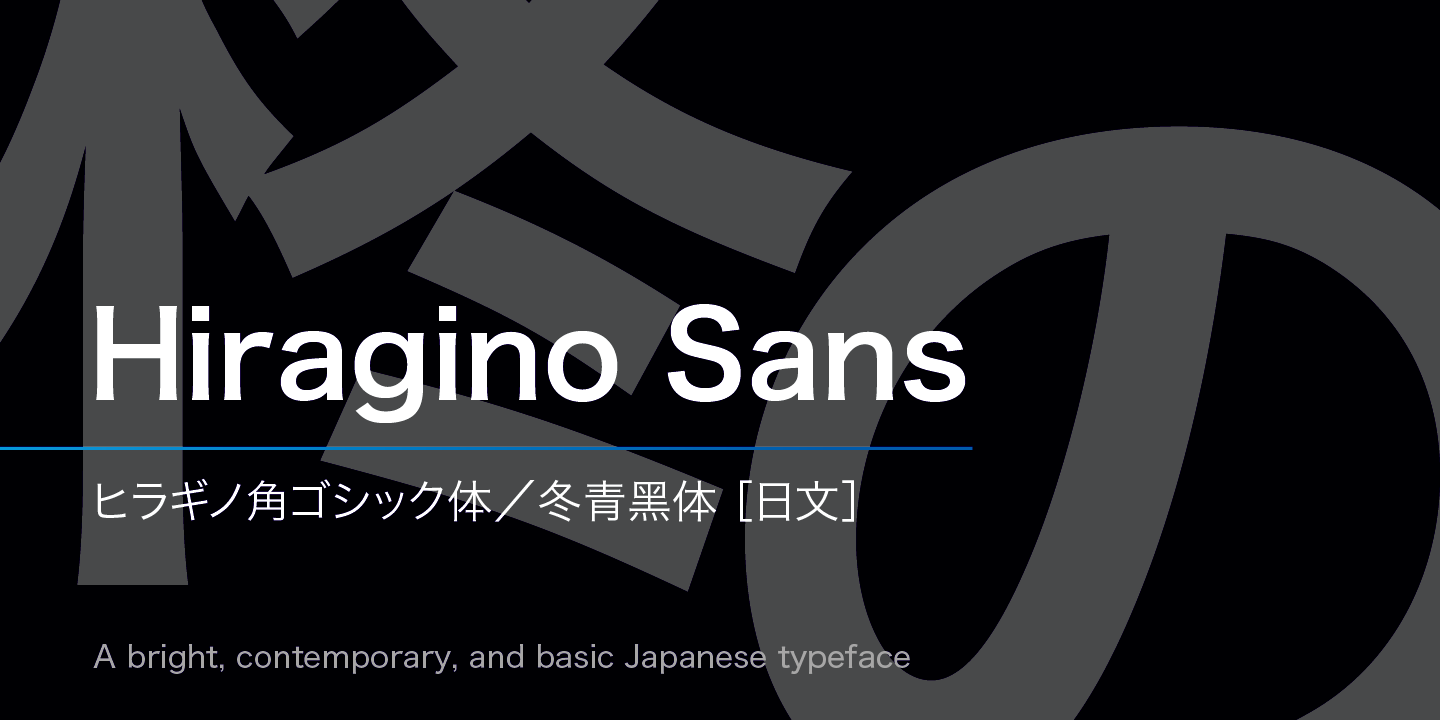
Hiragino Sans Font is perfect for Japanese-inspired and modern applications including contemporary Japanese restaurants, minimalist design studios, tech company interfaces, modern architecture presentations, zen wellness centers, Japanese cultural exhibitions, clean product packaging, and sophisticated digital platforms. This refined typeface brings authentic Japanese design philosophy and contemporary clarity to projects celebrating simplicity, functionality, and harmonious aesthetics.
What makes Hiragino Sans Font exciting is its masterful embodiment of Japanese design principles with exceptional clarity and modern functionality. The font features clean, well-proportioned letterforms that reflect the Japanese aesthetic of purposeful simplicity and attention to detail. Its sophisticated character design incorporates subtle geometric influences with organic warmth that creates perfect balance between technical precision and human comfort, essential for contemporary digital and print applications.
The Hiragino Sans Font family includes comprehensive weight options optimized for both Japanese and Latin character integration, maintaining visual harmony across multilingual applications. The family encompasses multiple styles designed for optimal performance across digital screens and print media. Extended character support includes Japanese kana, kanji compatibility, and international symbols essential for global Japanese brands and cultural projects.
Design professionals and Japanese organizations consistently choose Hiragino Sans Font Free Download for projects requiring authentic Japanese typography and modern design excellence. Whether developing Japanese cultural materials, creating technology interfaces, or designing contemporary brand identities, this font delivers exceptional clarity and cultural sophistication. Its unique combination of Japanese design heritage and international functionality makes it an invaluable resource for professionals working on Japanese cultural projects, technology platforms, and contemporary brands that demand typography reflecting the highest standards of Japanese design philosophy and modern global communication.